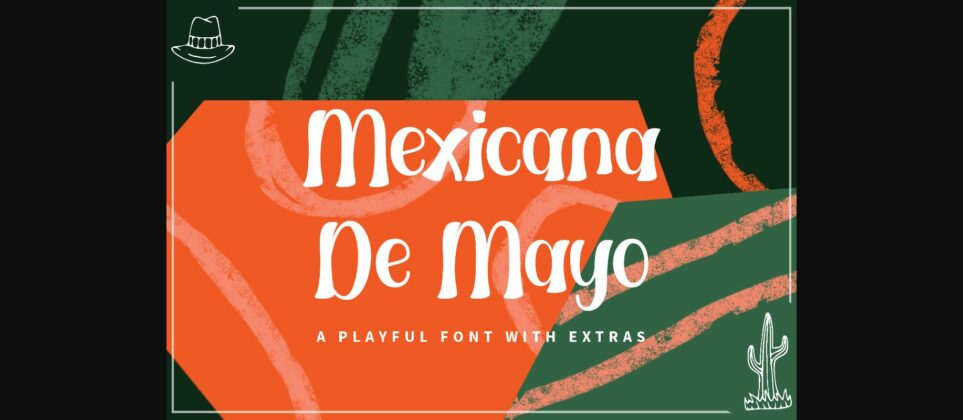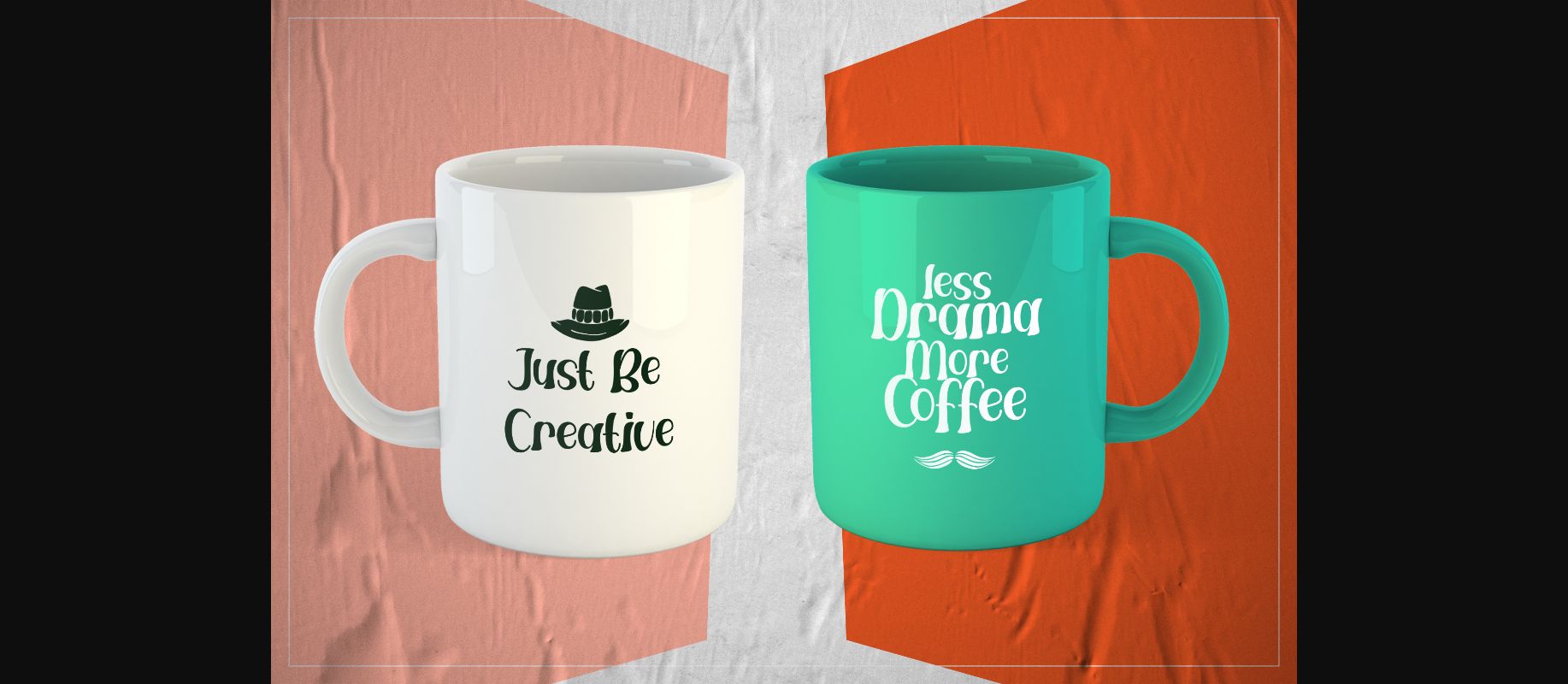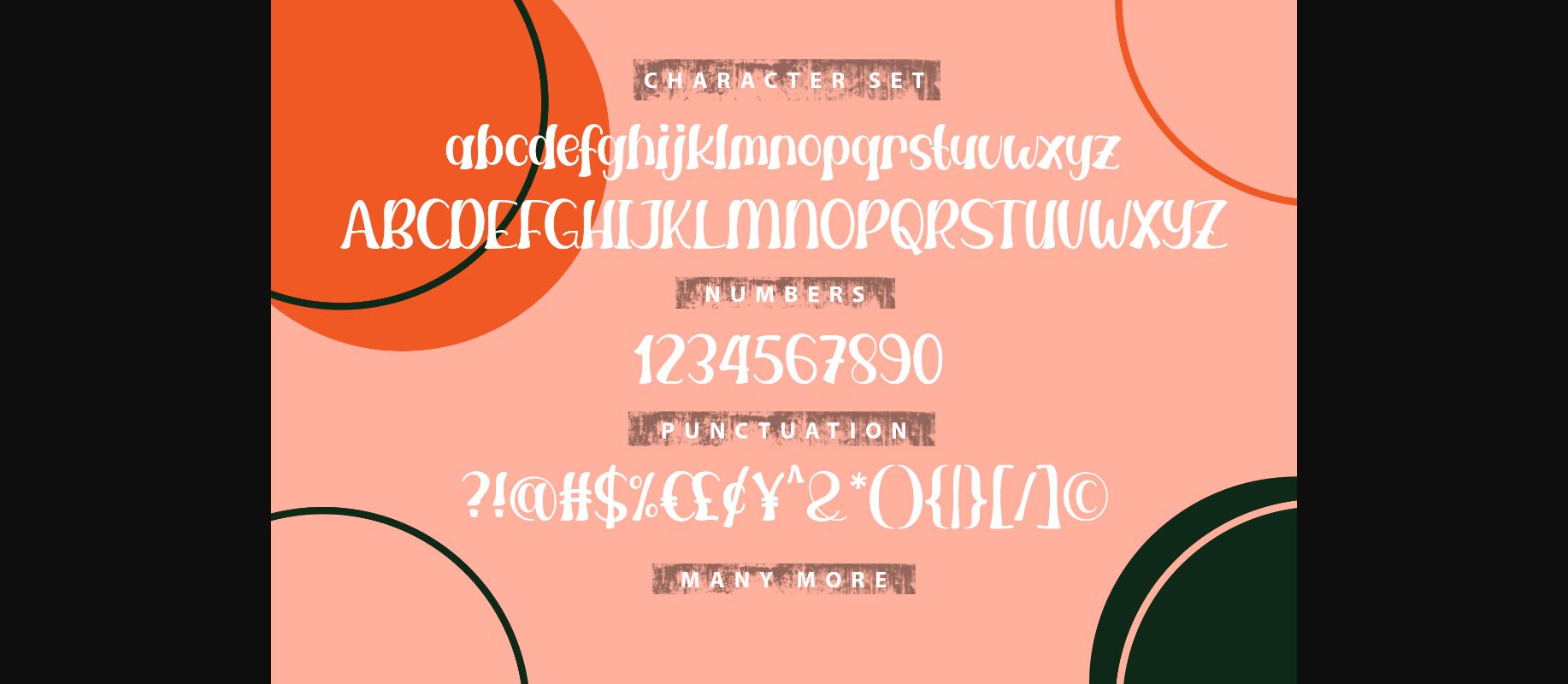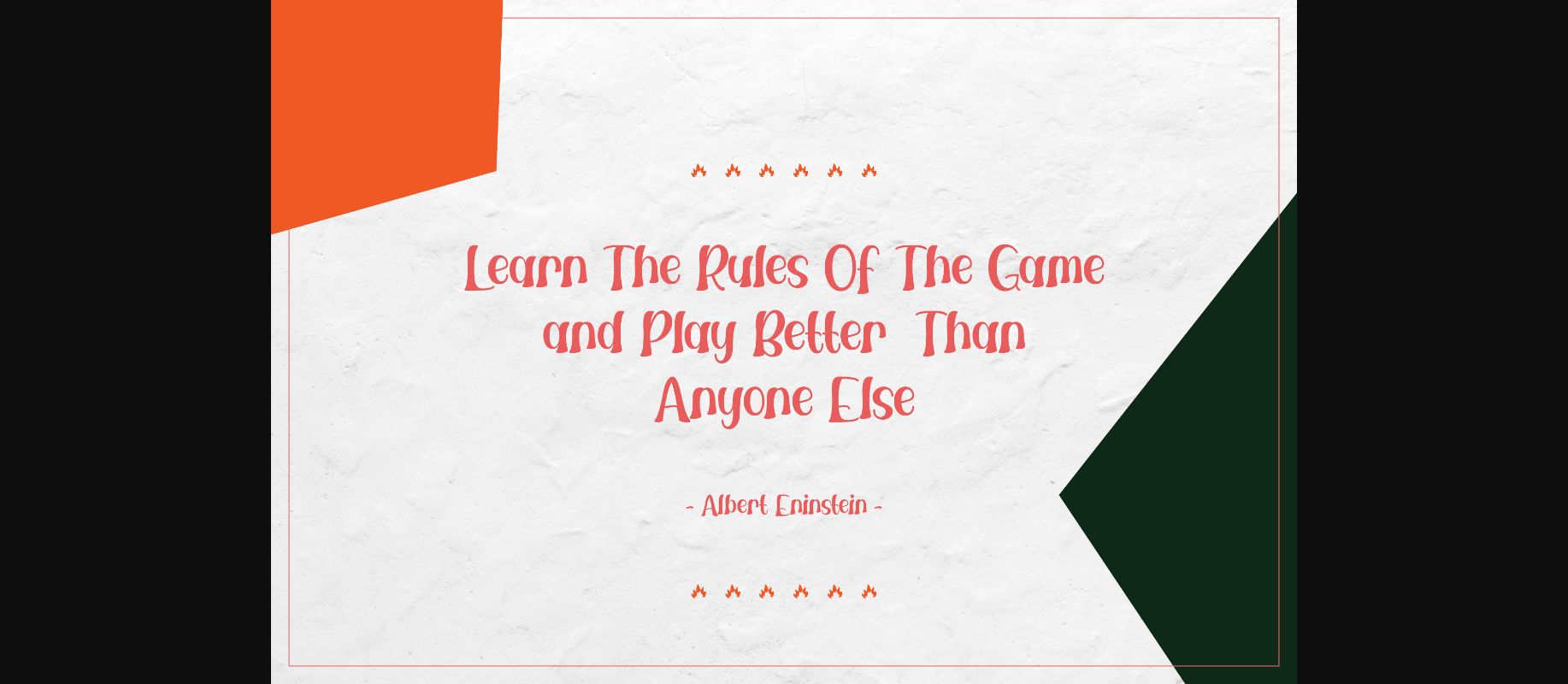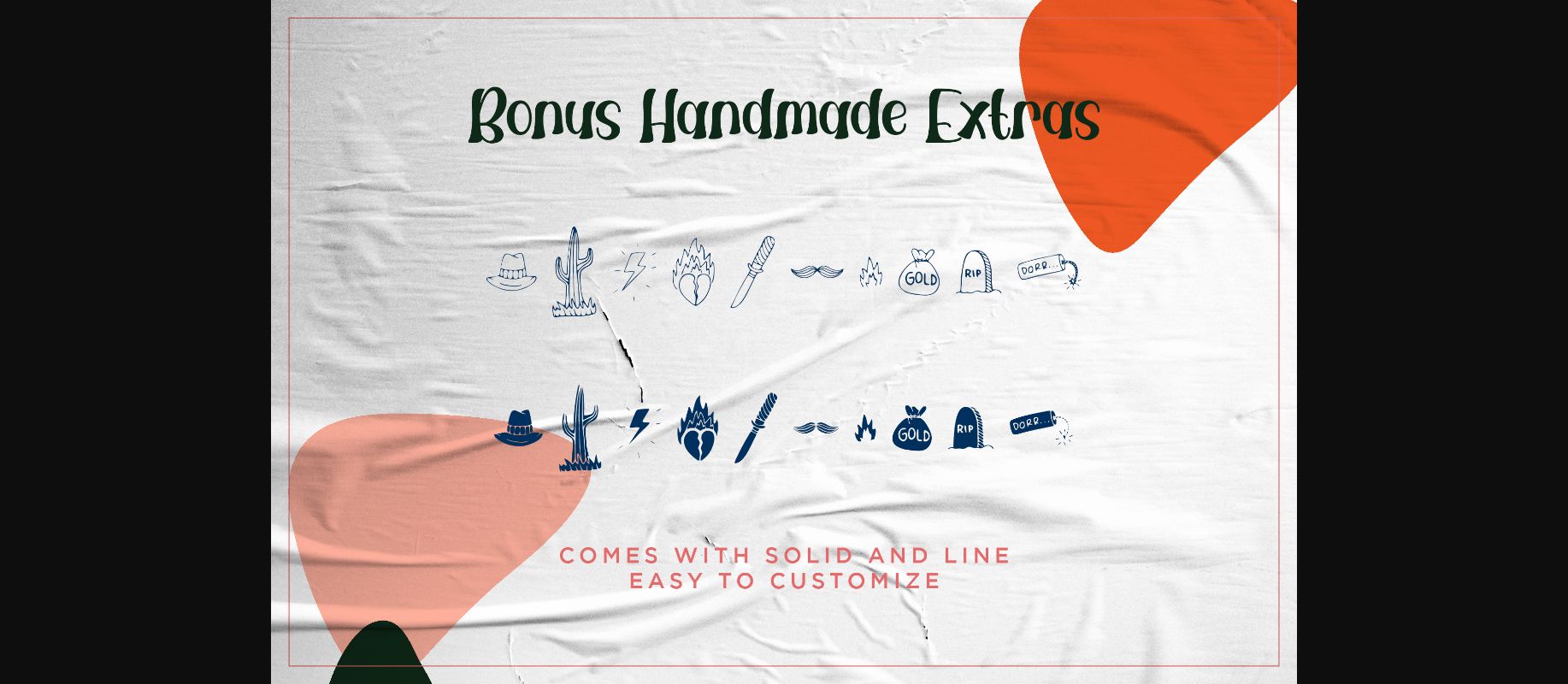
Mexicana De Mayo Font
About Mexicana De Mayo Font
Mexicana De Mayo is a lovely decorative font that is ready to be used in your new projects.
Give your next design some charm with this cute and playful font.